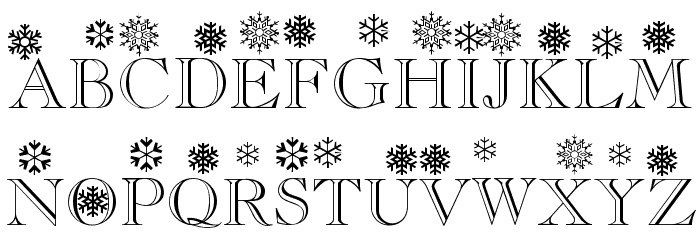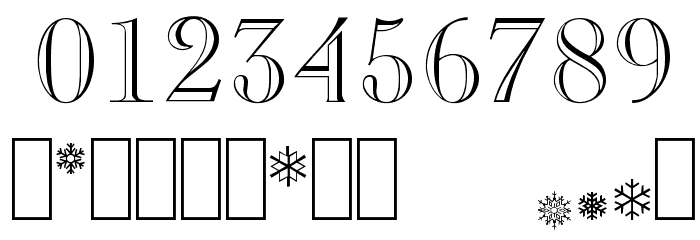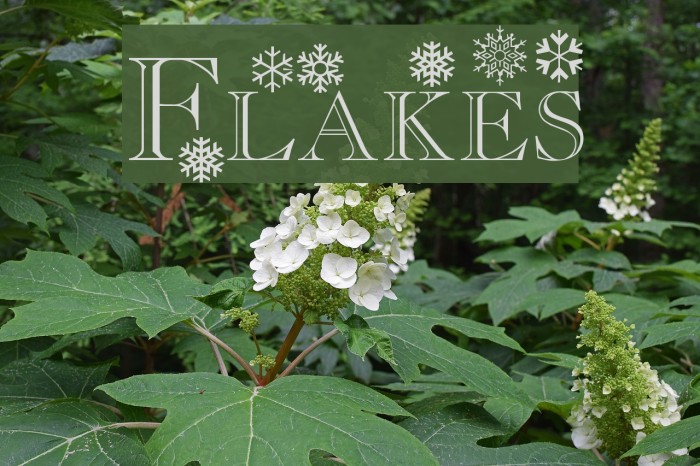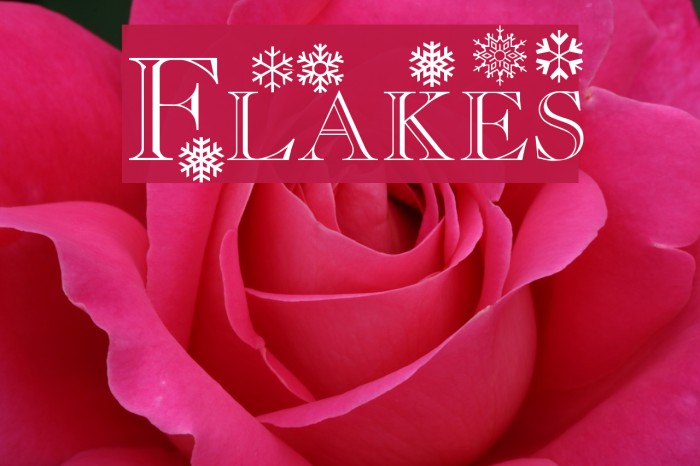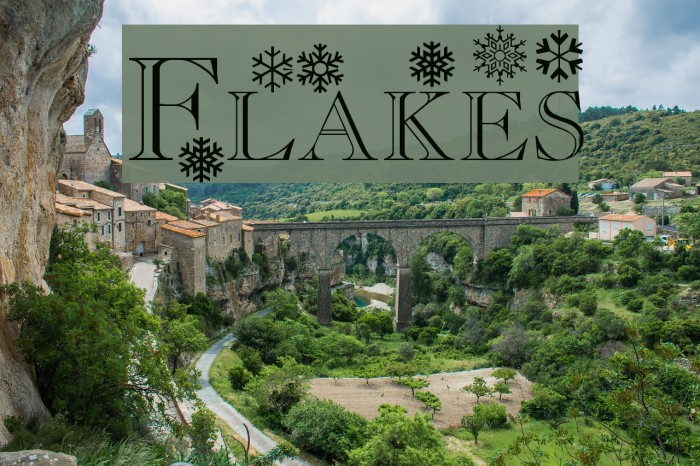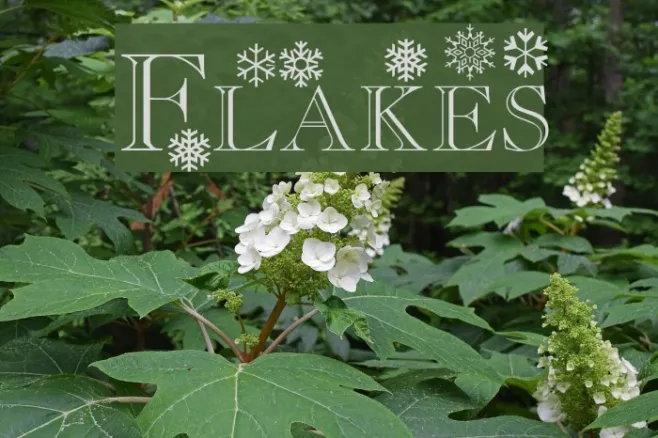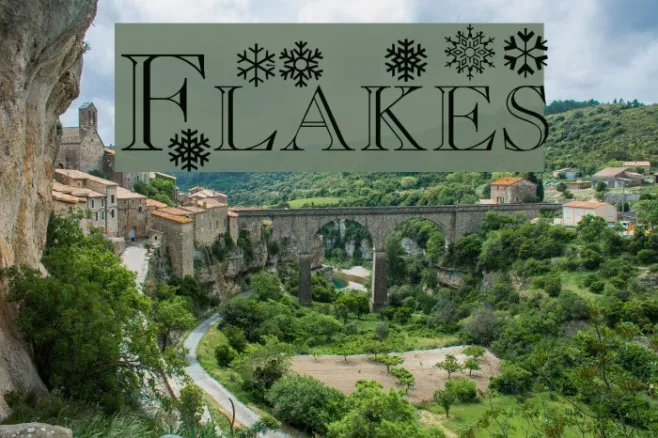
Flakes Font
This decorative font features elegant serif characters adorned with intricate snowflake designs, creating a festive and whimsical appearance. The uppercase letters are bold and prominent, each uniquely embellished with snowflakes that vary in size and complexity. The numerals maintain a classic serif style, providing a cohesive look throughout the font. The special characters, including symbols like asterisk and exclamation mark, are also integrated with snowflake motifs, enhancing the overall winter-themed aesthetic. The font's design is both playful and sophisticated, making it ideal for seasonal projects.
A decorative serif font with snowflake embellishments, perfect for festive designs.
- Proposed Projects: Ideal for holiday cards, winter-themed invitations, seasonal branding, and festive posters.
- Use Case: Headlines, Logos, Seasonal Designs